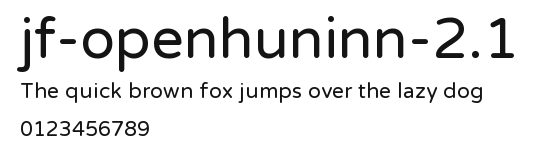
• Font Name: jf-openhuninn-2.1
• Full Font Name: jf-openhuninn-2.1
• Version: 2.1
• PostScript Name: jf-openhuninn-2.1
• Designer: [Kosugi Maru] Designed by MOTOYA [Varela Round] Joe Prince (Latin component); Avraham Cornfeld (Hebrew component) [jf open huninn] Chiaki.C, Bold, GoRong, Rose, Yunshan, ChingRu (Chinese Characters); GoRong (Diacritics); Chiaki.C, Bold (Bopomofo); Michael, ChingRu (Font Engineering);
• Manufacturer: justfont Co., Ltd.
About jf-openhuninn-2.1.ttf
jf-openhuninn-2.1.ttf is a modern, elegant sans-serif font designed for ultimate readability and visual harmony. Perfect for branding, headlines, web design, and print materials.